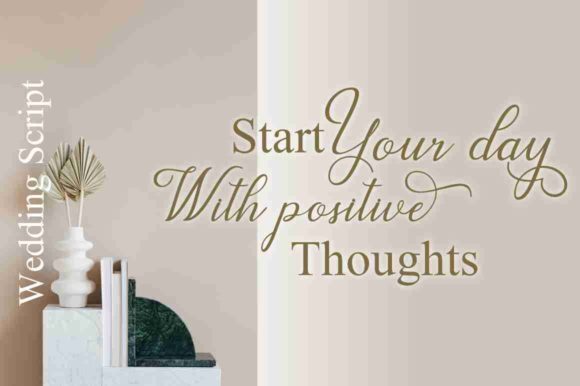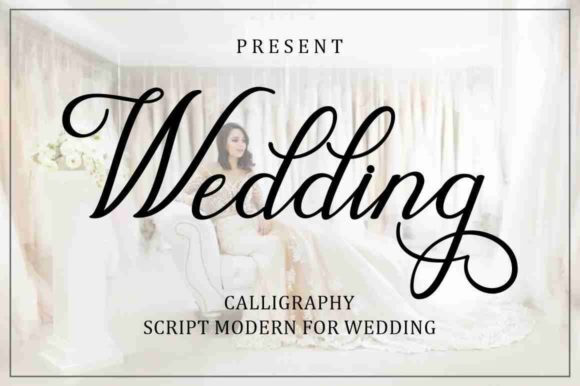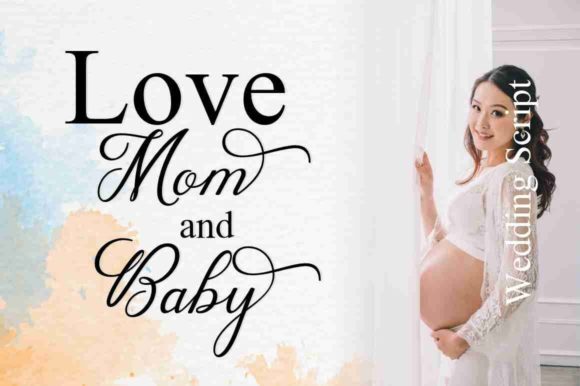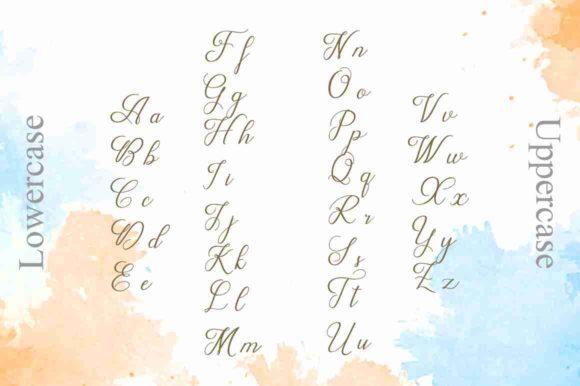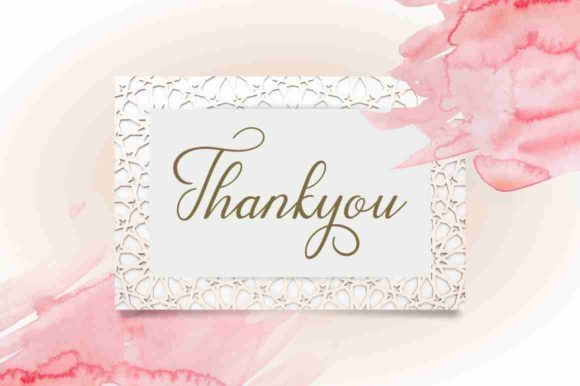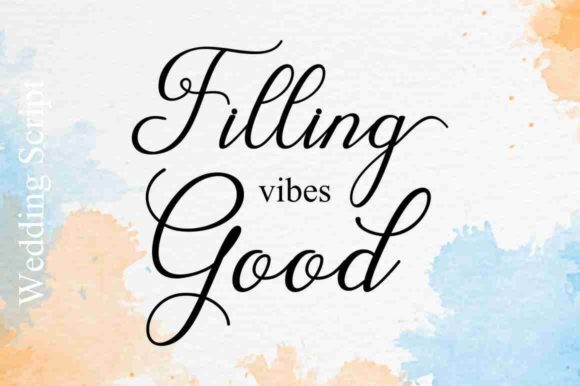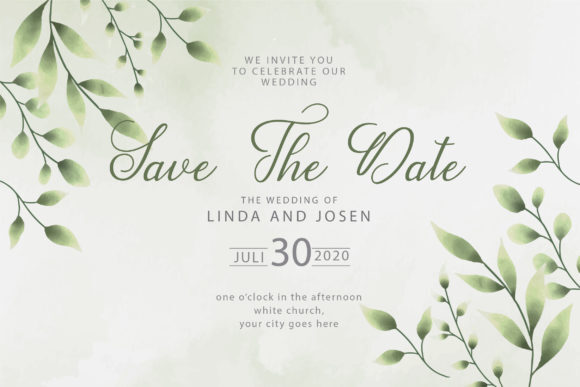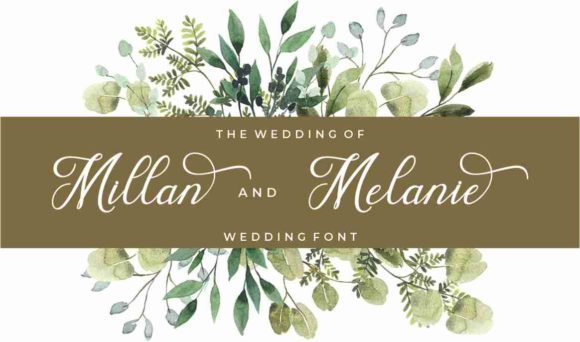
Wedding Font
Wedding is a modern and classy handwritten font. It has a charming slim body and sophisticated characters that can elevate the look of any creative project! This font is PUA encoded, which means you can access all of the glyphs and swashes with ease!